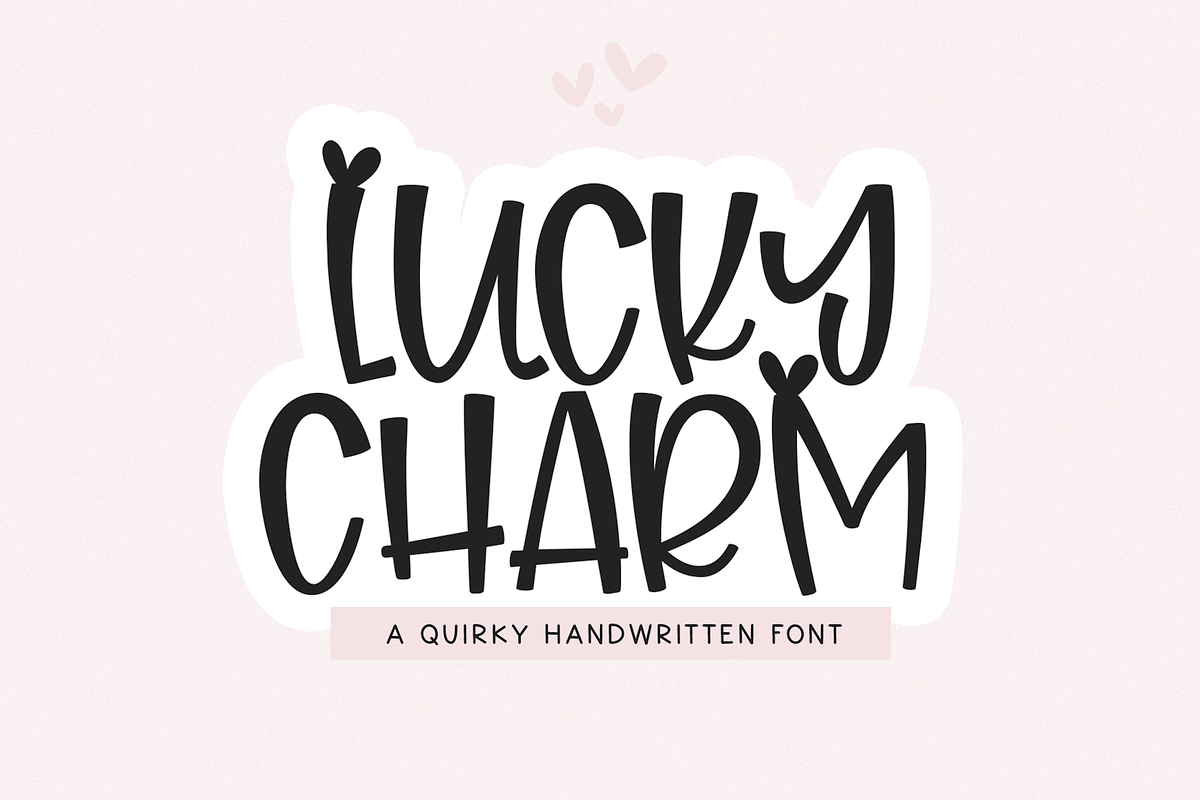
Lucky Charm - A Handwritten Font Free Download
The Lucky Charm - A Handwritten Font Free Download is a playful and whimsical handwritten typeface that adds a personal and charming touch to your designs. Perfect for creating logos, invitations, greeting cards, social media posts, and other creative projects, this font brings a friendly and fun feel to your work. Please note, for commercial use, a license must be purchased. You can download it for free for testing purposes.
With its rounded letters and flowing strokes, the Lucky Charm - A Handwritten Font Free Download is ideal for projects that need a cheerful, casual vibe. Whether you're working on a fun branding project, custom stationery, or unique promotional content, this font will give your designs a warm, inviting appearance.